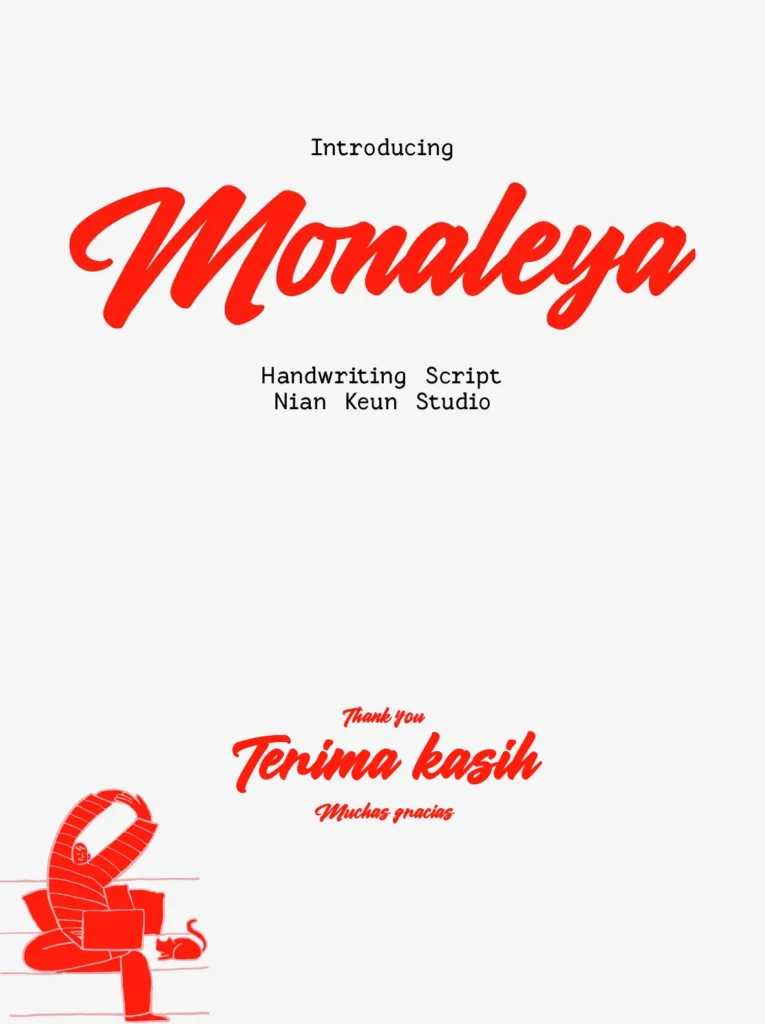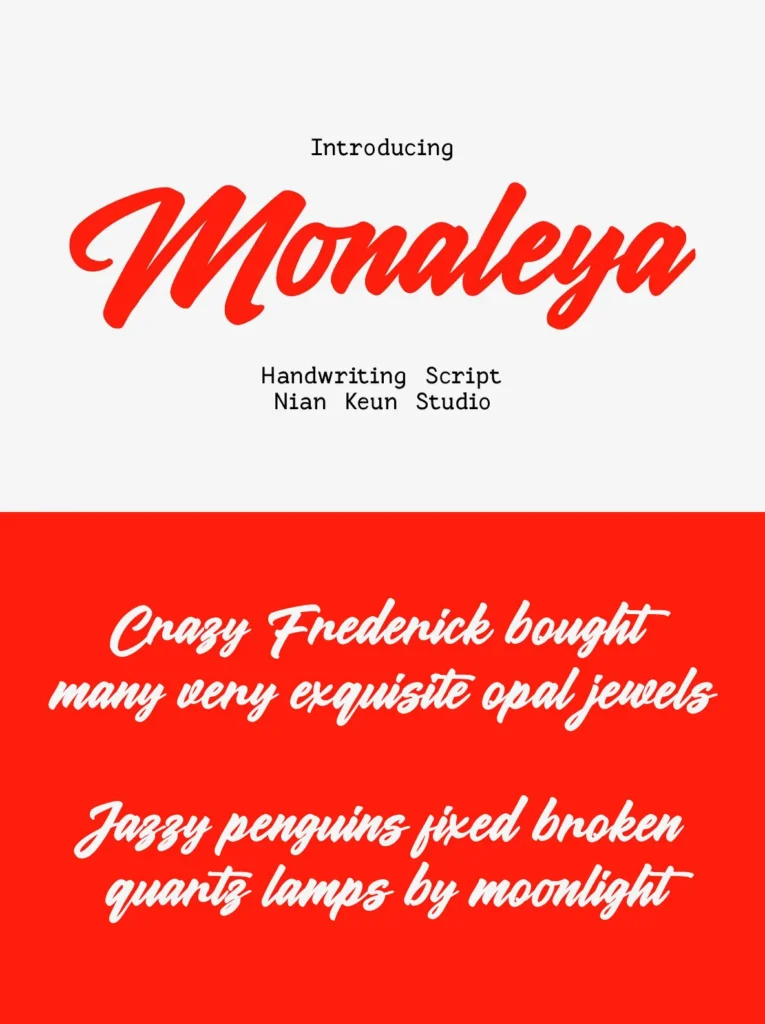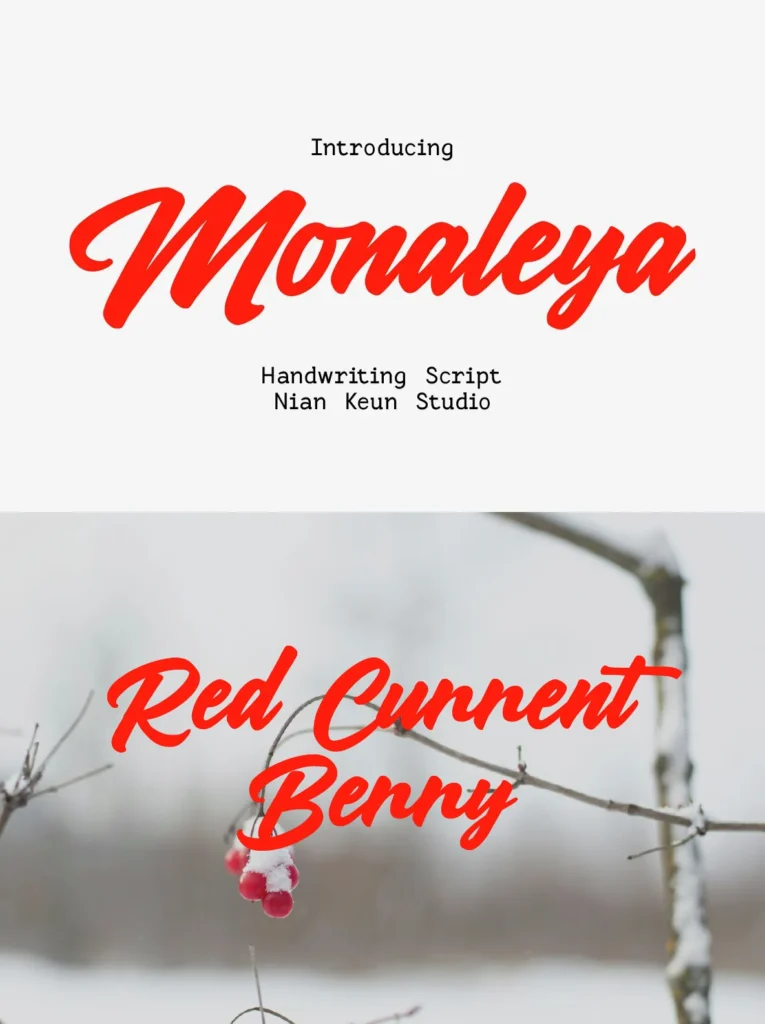
Monoleya — Brush Script with Presence
Monoleya is a bold, expressive handwritten script font that captures the beauty of natural brush lettering with confidence and charm. Its smooth flowing strokes, dynamic curves, and handcrafted feel give the typeface a strong sense of movement, while its refined rhythm keeps it elegant and personal.
Monoleya suits branding projects, logos, product packaging, social media graphics, wedding invitations, fashion campaigns, signatures, quotes, and modern advertising materials. Each character is carefully drawn to create a natural writing rhythm, giving designs an authentic, premium handcrafted appearance. Use it for a sophisticated brand identity or a striking headline when your work needs warmth, energy, and visual impact.
Uppercase & Lowercase Characters
Smooth Handwritten Brush Style
Beautiful Ligatures